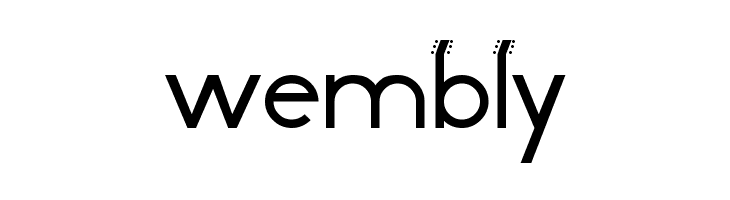
Amattera Million Font
- Font: Amattera Million
( Fonts by Matthew Welch - www.squaregear.net/fonts/ )
A playful and modern font with rounded characters and unique dot patterns.